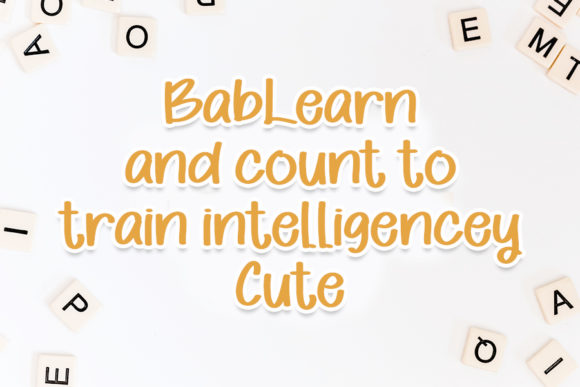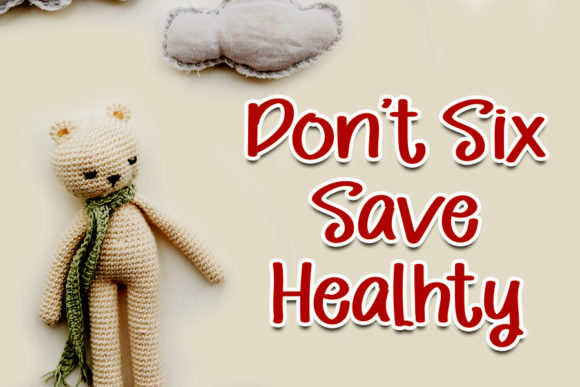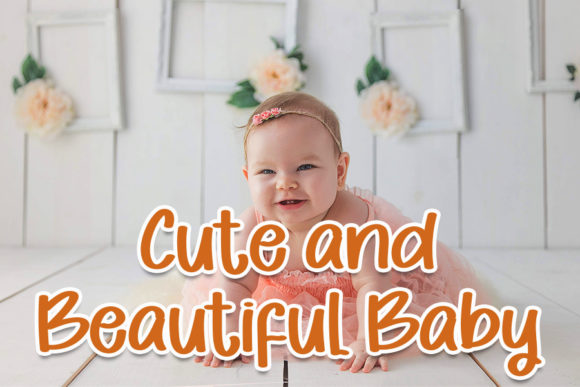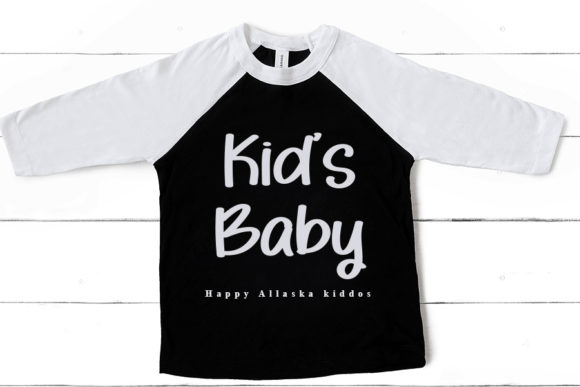
Unleashing the Cuteness: Discover the Magic of Baby Cute Font
Have you ever been working on a design project, pouring your heart and soul into it, only to feel like it’s missing that special something? I know I have, and it’s moments like those that make me wish I had the perfect font to bring it all together. That’s when I stumbled upon the Baby Cute Font – a beautiful, sweet handwritten font that instantly adds a touch of whimsy and charm to any design.
The Baby Cute Font is more than just a pretty face; it’s a valuable tool for designers looking to add a personal touch to their work. With its casual and playful feel, it’s perfect for a wide range of designs, from greeting cards to social media graphics. Whether you’re a seasoned pro or just starting out, this font is sure to become a trusted companion in your creative journey.
Baby Cute Font Key Features
- Font Style: Cursive, Script
- Unique Characteristics: Includes a range of cute and playful characters, including smiley faces, animals, and objects
Designer Review: Baby Cute Font
Overall, I think the Baby Cute Font has a certain charm to it, but its effectiveness really depends on the context it’s used in. ✨ One thing that works well is its playfulness, which can add a touch of whimsy to children’s books, nursery decor, or even branding for family-friendly businesses. The rounded edges and soft curves give off a gentle, endearing feel that’s perfect for conveying a sense of sweetness and innocence.
However, there are some limitations to consider. ⚠️ For one, the font may not be as versatile as some other sans-serif fonts on the market. It’s best suited for short text passages or headlines, as longer blocks of text can become overwhelming and difficult to read. Additionally, the font’s cutesy aesthetic may not be suitable for all audiences, particularly those seeking a more professional or sophisticated look.
- Playful, whimsical design
- Rounded edges and soft curves
- Best suited for short text passages or headlines
- May not be suitable for all audiences
Recommendation:
If you’re looking for a font to add a touch of cuteness to your design, Baby Cute Font may be a good choice. However, be sure to use it in moderation and consider the context in which it will be used to ensure it doesn’t come across as overly childish or unprofessional.
Baby Cute Font is perfect for creating designs for:
– Children’s products, such as toys and clothing
– Nursery decorations, such as wall art and bedding
– Baby-related businesses, such as online stores and blogs
– Social media graphics and advertisements
To get the most out of Baby Cute Font, try:
– Combining it with other playful fonts for a unique look
– Using it for headings and titles to add a touch of whimsy
– Experimenting with different font sizes and colors to create visual interest
Alternatives to Baby Cute Font
Lobster is a fun, casual font that is often used in creative and playful designs. It is similar to Baby Cute Font in its cursive nature, but it has a more relaxed feel and is often used for headings or titles. When to use: Use Lobster for designs that need a touch of whimsy and personality.
Comparison: Lobster is more casual and laid-back than Baby Cute Font, making it a great choice for designs that need a relaxed feel. It’s also a bit more versatile, making it suitable for a wider range of applications.
Great Vibes is a modern, cursive font that is perfect for designs that need a touch of elegance and sophistication. It is similar to Baby Cute Font in its flowing nature, but it has a more refined feel and is often used for body text. When to use: Use Great Vibes for designs that need a sense of luxury and refinement.